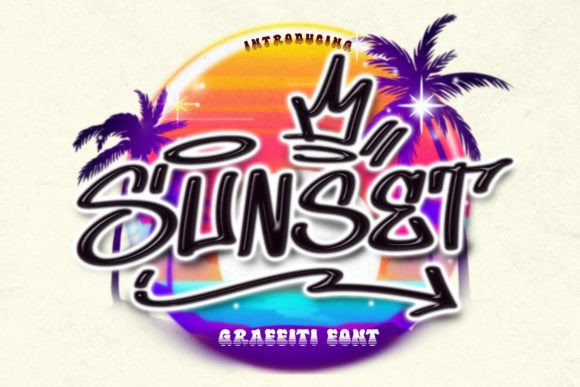
Looking for a font that captures the raw energy and edginess of street art? Look no further than Sunset Font by BB Type Studios! This graffiti-styled display font is perfect for anyone who wants to add a touch of urban flair to their designs.
With its bold, expressive lines and hand-drawn look, Sunset Font is the perfect choice for anyone looking for a font that truly stands out. Whether you're designing t-shirts, sportswear, logos, advertisements, or anything else, this font is sure to make an impact.
But Sunset Font isn't just about style – it's also incredibly versatile and functional. Its handwritten letter design makes it ideal for anyone who wants to add a personal touch to their designs. And with its bold, legible lines, it's perfect for everything from headlines to body text.
So why should you download Sunset Font? Simple – because it's the perfect font for anyone who wants to make a statement. Whether you're a designer, an artist, or just someone who loves the look of graffiti, this font is sure to impress.